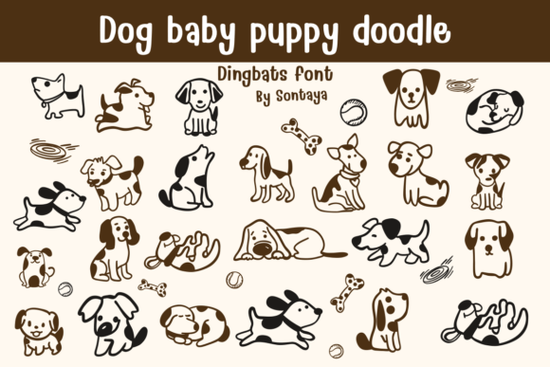
Finding the right graphics for pet-related projects can be challenging when you want something that feels personal and handcrafted. Many designers struggle with generic clipart that lacks character or warmth. The Baby Dog Puppy Doodle Font offers a solution by providing a collection of expressive vector graphics that mimic hand-drawn illustrations. This tool is particularly useful for creators who need scalable images that retain quality at any size, whether for small stickers or large signage.
This specialty icon set focuses on organic monoline strokes and cozy patch spots, giving every element a whimsical expression. Unlike standard fonts that only provide letters, this set includes active running hounds, begging terriers, and sleepy curled-up dogs. It also features accessories like floating frisbees and tiny bone snacks. These elements allow you to build scenes rather than just placing static images on a page. The style bridges the gap between nostalgic children's book layouts and modern pet-themed lifestyle branding.
Why choose vector doodles over static images?
When working on print-on-demand products or custom packaging, file quality matters significantly. Static images like JPEGs can become pixelated when enlarged, which looks unprofessional on physical goods. Vector-based doodle fonts solve this problem because they are mathematically defined paths. You can resize a puppy graphic from a tiny planner sticker to a large storefront window decal without losing clarity.
Additionally, vector files offer flexibility in color customization. Since the strokes are separate paths, you can easily change the line color to match a specific brand palette. If a veterinary clinic uses blue and white instead of the default black, you can adjust the graphics instantly. This adaptability saves time during the design process and ensures consistency across different marketing materials. It allows small business owners to maintain a cohesive look without needing advanced illustration skills.
What projects work best with puppy-themed graphics?
The versatility of this set makes it suitable for a wide range of commercial and personal applications. Independent pet boutique owners often need unique packaging labels that stand out on shelves. Using hand-drawn elements creates a sense of care and authenticity that resonates with pet owners. You can incorporate the sleeping hounds or bone snacks onto treat bags, collar tags, or shopping receipts.
Planner enthusiasts and sticker sellers also benefit from these assets. Custom planner sticker bundles are popular items in the crafting community. The playful nature of the graphics fits well into weekly spreads, habit trackers, or pet care logs. For those looking to access the specific files for these types of projects, you can navigate to the dedicated dingbats fonts directory to ensure you have the correct format for your software. Beyond retail, these graphics work well for veterinarian office graphics or custom puppy adoption flyers. Social media managers can use the icons to create high-impact templates that encourage engagement from animal lovers.
How should you combine this with other typography?
Using a decorative icon set requires balance to ensure readability. Since the puppy graphics are detailed and whimsical, they should not be paired with equally complex text fonts. A clean sans-serif typeface works best for body text to keep the design legible. The doodle elements should act as accents or bullet points rather than the primary method of communication.
Contrast is key when building a brand identity. If you are creating a logo or header, you might want to mix the playful dog icons with something more structured. For example, if you are designing for a pet pageant or a premium service, you could contrast the casual puppy lines with more regal iconography. You might even explore royal-themed icons to create a unique juxtaposition between fun and elegance. This technique helps define hierarchy in your layout, guiding the viewer's eye to the most important information first while keeping the overall vibe friendly.
Is this suitable for commercial printing?
Yes, vector fonts are generally ideal for commercial printing because of their resolution independence. Whether you are using screen printing for t-shirts or digital printing for business cards, the lines will remain crisp. However, always check the specific licensing terms associated with the download. Most creative marketplaces allow for commercial use on physical end products, but there may be restrictions on redistributing the font file itself.
Before sending files to a printer, convert all text and icons to outlines. This prevents font substitution issues if the printer does not have the specific file installed on their system. Embedding the graphics ensures that the sleepy curled-up hounds and floating frisbees appear exactly as you designed them. Testing a sample print is always recommended to verify that the monoline strokes do not disappear when scaled down too small.
To get the best results with this type of asset, follow these practical steps:
- Check Scale: Ensure the monoline strokes are thick enough to print clearly on small items like stickers.
- Limit Colors: Stick to one or two colors for the doodles to keep printing costs down and visual clarity high.
- Outline Paths: Convert all vector elements to paths before sharing files with manufacturers or clients.
- Maintain Spacing: Give the graphics enough breathing room so the details do not look cluttered.